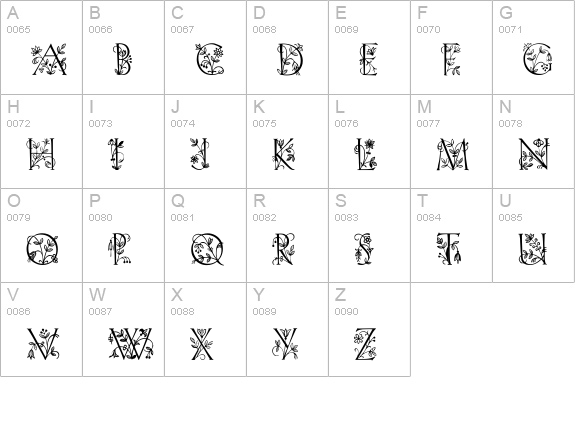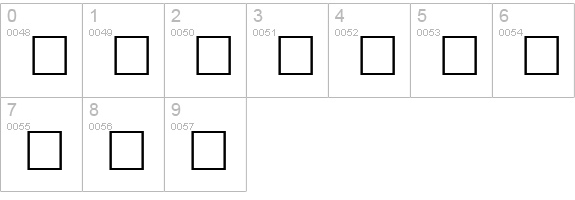
LilithInitials font is a stunning display typeface that exudes elegance and sophistication. With intricate details and a touch of vintage charm, this font is perfect for adding a touch of class to your designs. Its ornate initials will captivate your audience and elevate your projects to the next level. And the best part? LilithInitials font is completely free to download at FontsMarket.com. So whether you're crafting invitations, designing logos, or creating posters, this font is a must-have in your collection. Don't miss out on the opportunity to enhance your designs with the beauty of LilithInitials font - download it now and let your creativity soar!